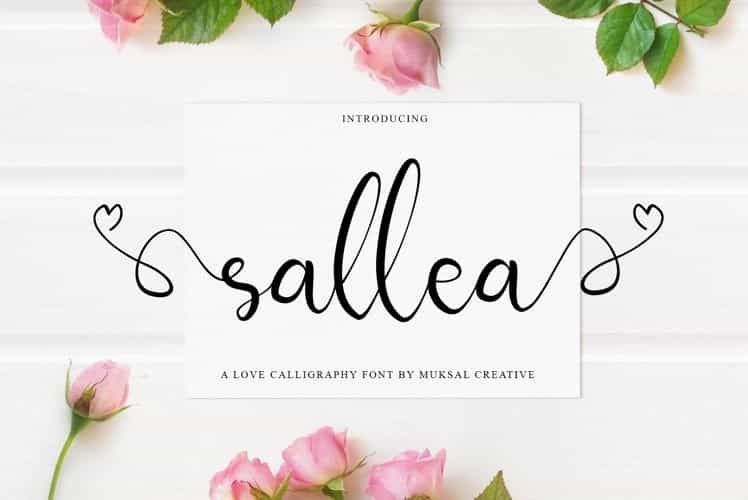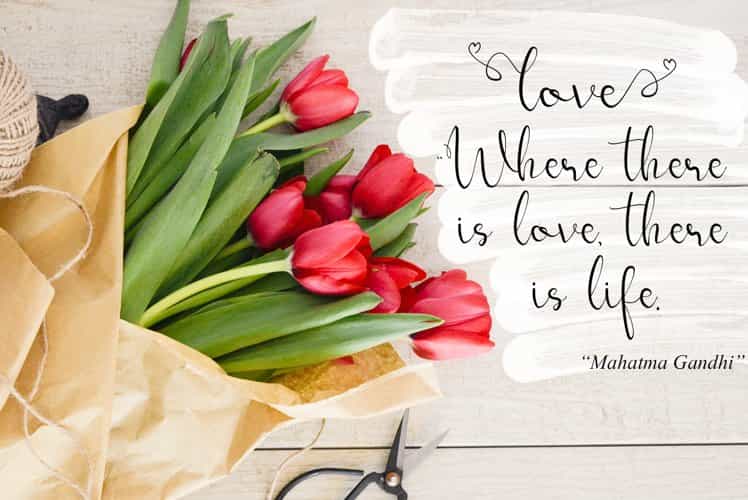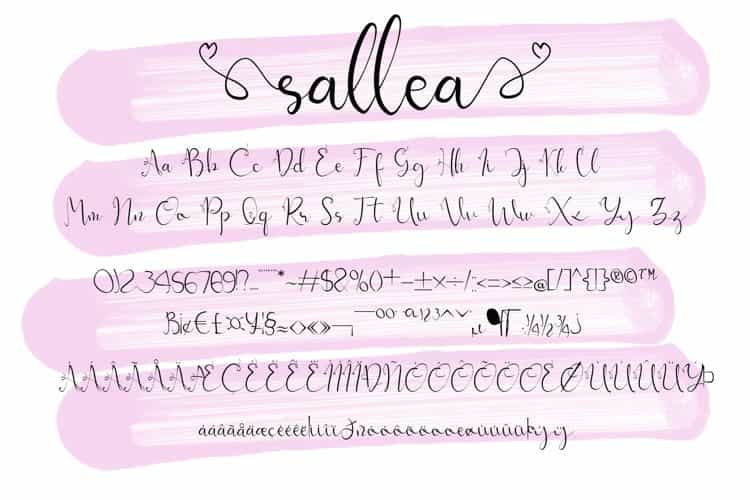
Sellea a delicate and modern calligraphy typeface with lovely curves and Swashes. It is a blend of copperplate calligraphy, handwriting and style. It is designed to convey style and grace. Sellea Font is appealing like a soft, elegant feminine, elegant, clean elegant, sensual, beautiful, and easily readable typeface.